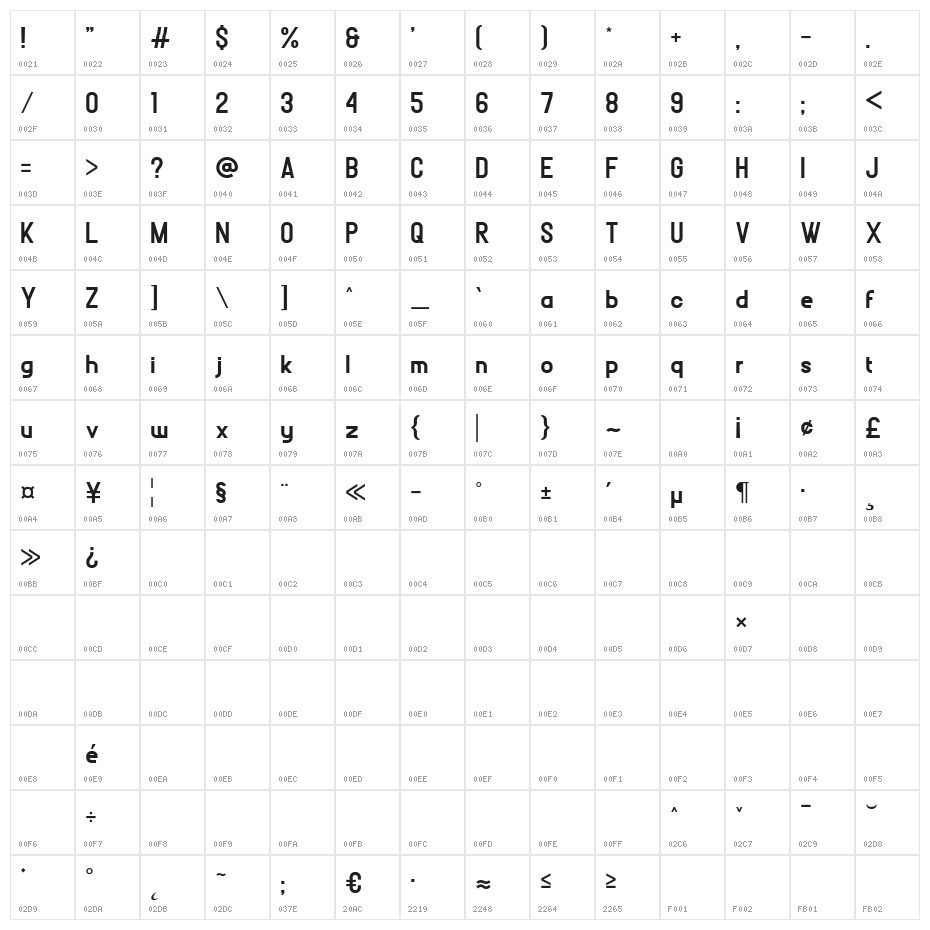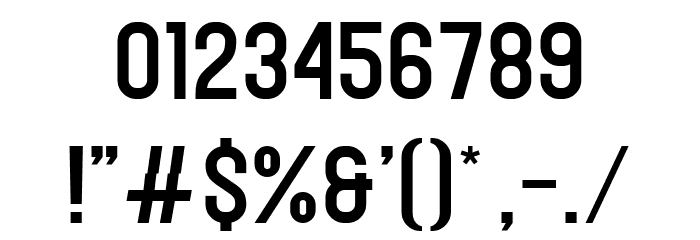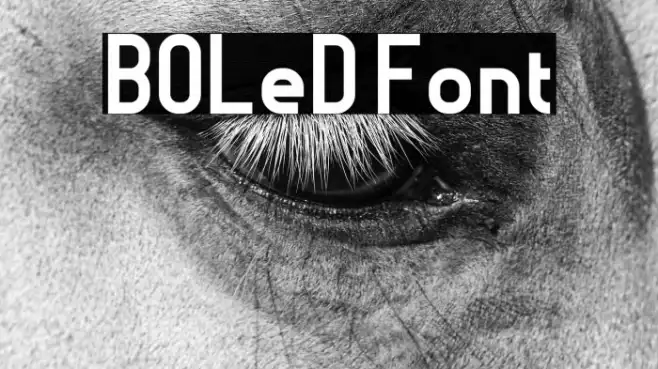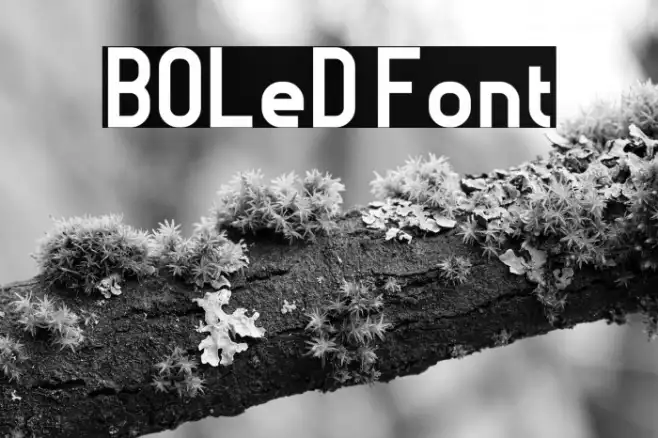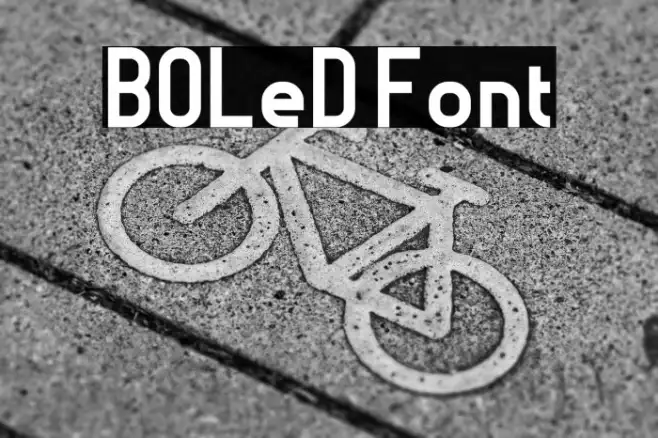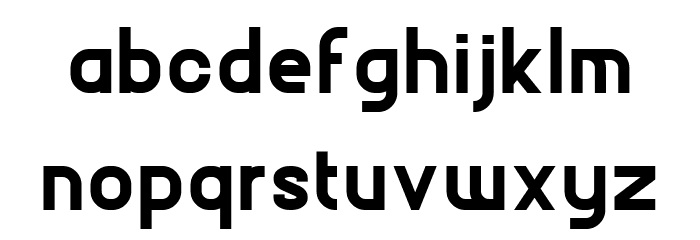
BOLeD Font
BOLeD Description
This font features a bold and assertive design, characterized by its strong geometric shapes and clean lines. The uppercase letters are tall and commanding, while the lowercase letters maintain a consistent height that complements the overall structure. The numerals are clear and easily distinguishable, making them suitable for various applications. Special characters are well-defined, adding versatility to the font's usage. The uniformity in stroke width across all characters gives it a cohesive and modern appearance, making it ideal for impactful headlines and branding materials.